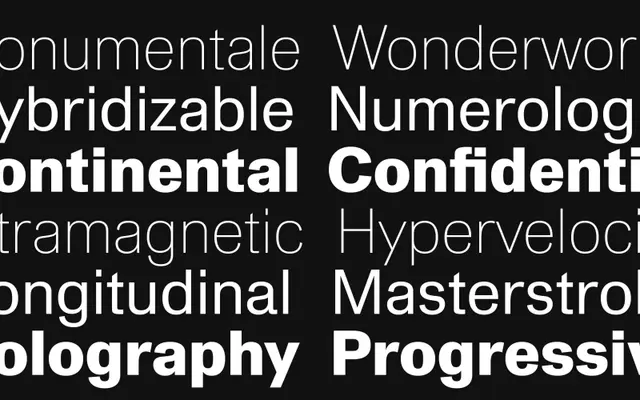
Berna specimen from The Designers Foundry
A neo-grotesque with Swiss roots offered in 16 styles and a variable font file, with eleven stylistic sets providing alternates that shift the feel from geometric to more traditional.
Berna balances the structured geometry of Swiss modernism against softer, more expressive curves, distinguishing it from harder neo-grotesques. Sixteen static styles run from Thin to Black with matching italics, and a single variable font file covers both weight and italic axes. Eleven stylistic sets offer alternate forms for characters including the a, g, k, R and ampersand, broadening the range from clinical to character-driven settings.
Described explicitly as a neo-grotesque, Berna draws on Swiss modernist tradition while incorporating more expressive curved forms and geometric details, placing it clearly within the neo-grotesque subcategory.